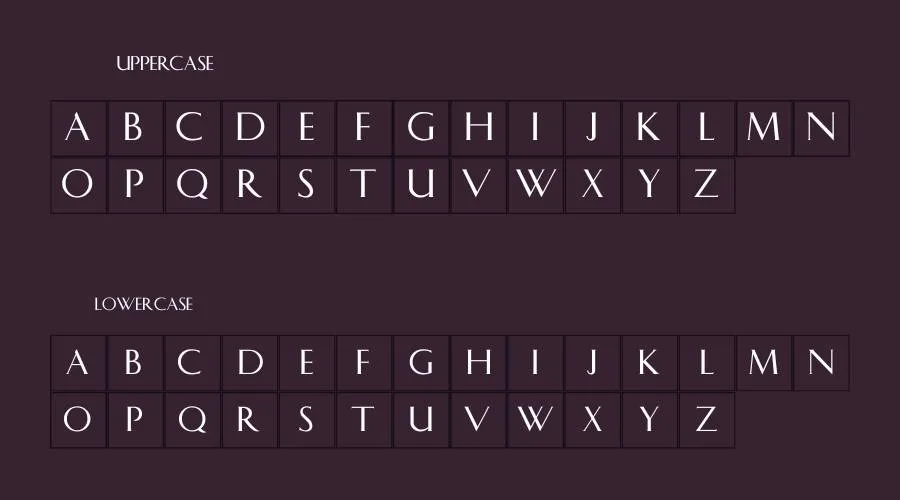
About LHF Charlotte Font
The subfamily of the LHF Charlotte Font is regular and created by Letterhead Fonts. You may get it free from here and is the perfect choice for all your fun tasks and purposes. This stunning typeface looks like the fancy texture family with a neat and stylish texture look impression.
The pairing quality of this typeface is amazing and can be paired with cricket font and create gorgeous texture designs. You may utilize the online generator tool of this unique texture, where you can change all your normal type of alphabet characters into stylish and modern shapes.
This font is the perfect choice for all your personal or commercial tasks. You can use it for making logo designs, posters, banners, social media posts, and many more projects.
Due to its versatile qualities, it can be utilized for many additional types of creation. For example, it can be utilized for symbols and branding, packing, website layout, brochures and booklets, stationery, signs, and pennants as well as other types of printed cloths.
You can also utilize this typeface for titles and headings. This font can be utilized with celestial font and make contemporary assignments. Many designers utilize this font for creating card designs, like wedding cards, invitation cards, office cards, and birthday cards.
What is a similar font to LHF Charlotte Font?
A similar font to this attractive typeface is cloister black font. This font is the perfect choice for all your fun purpose and tasks.
Is LHF Charlotte Font easy to read?
Yes! This attractive typeface is easy to read for visitors. It has a neat and attractive texture look appearance.